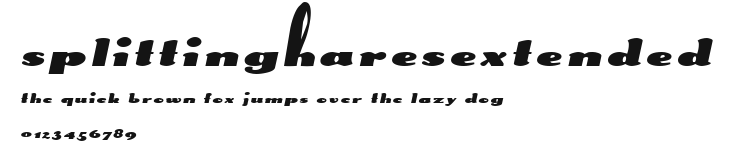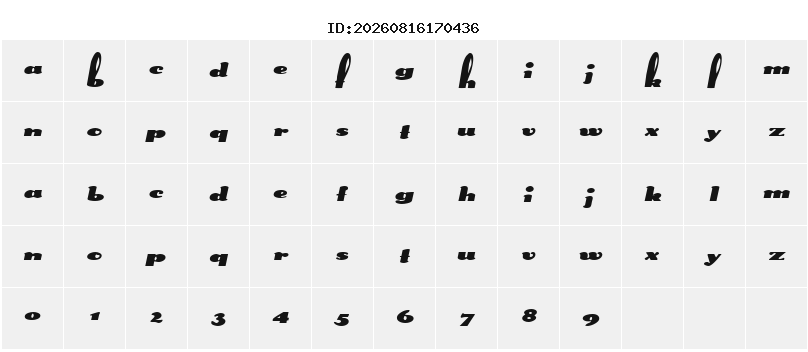
SplittingHaresExtended Preview
• Font Name: SplittingHaresExtended
• Font Style: Oblique
• Font ID: SWFTE:SplittingHaresExtended Oblique
• Full Font Name: SplittingHaresExtended Oblique
• Version: Rev. 003.000
• PostScript Name: SplittingHaresExtendedObliqueSWFTE
• Character Count: 161
About SplittingHaresExtended.ttf
SplittingHaresExtended.ttf is a modern, elegant sans-serif font designed for ultimate readability and visual harmony. Perfect for branding, headlines, web design, and print materials.